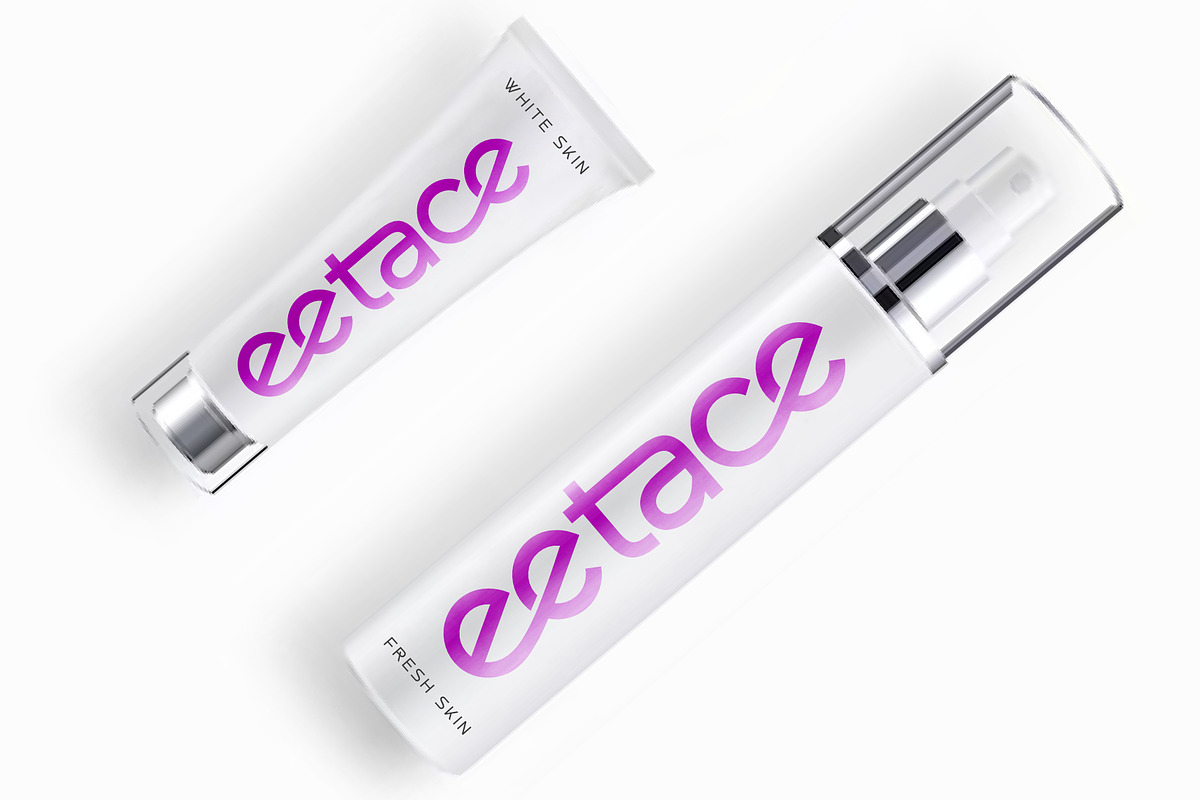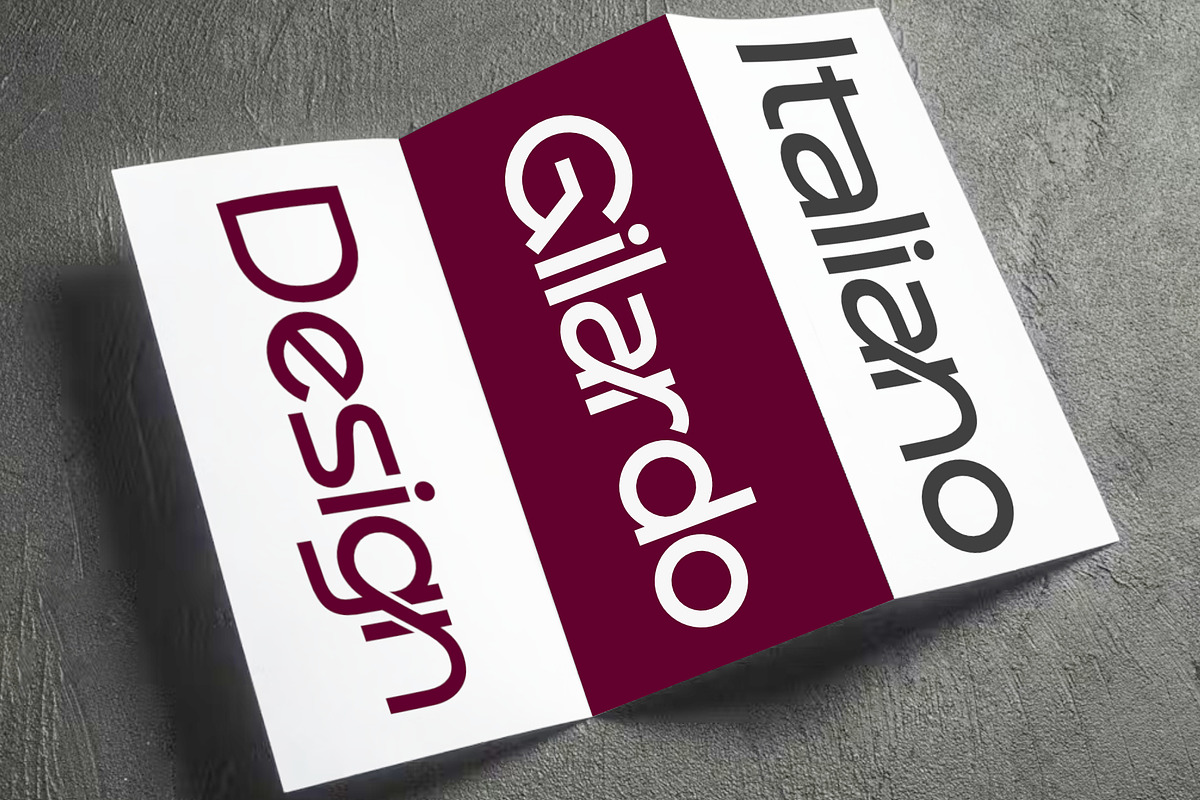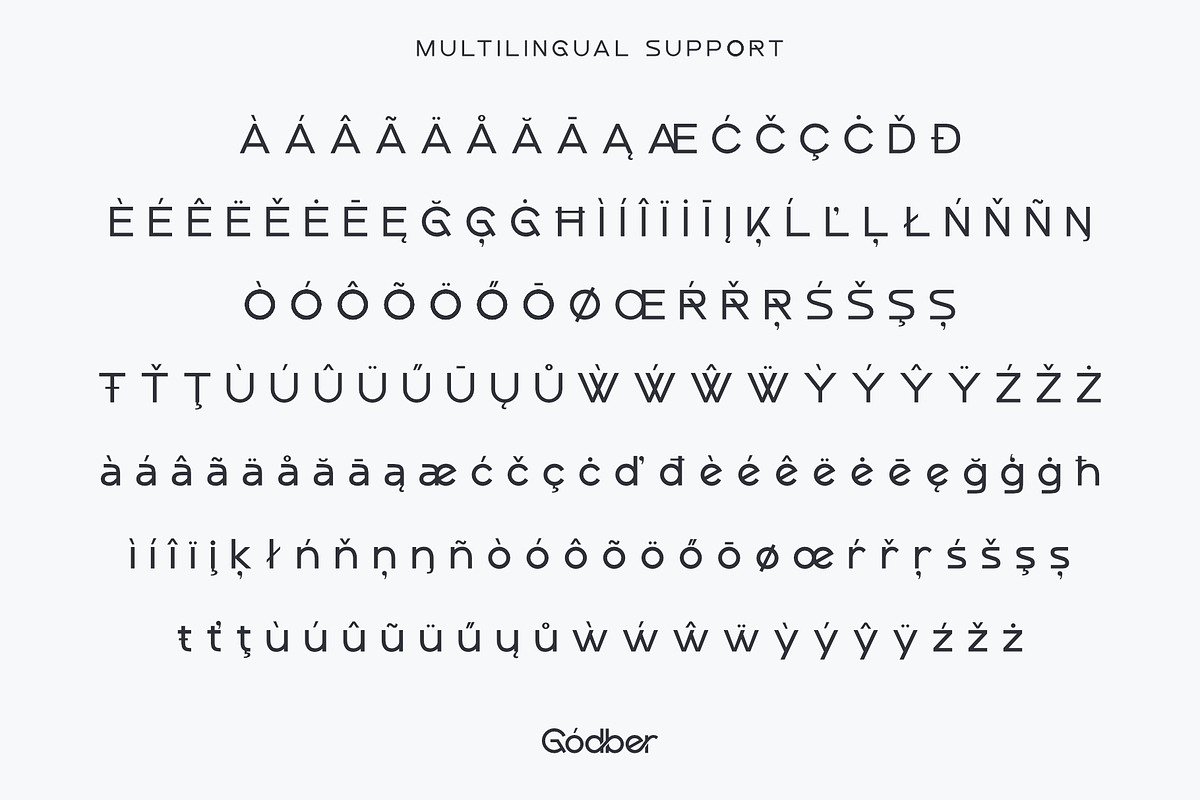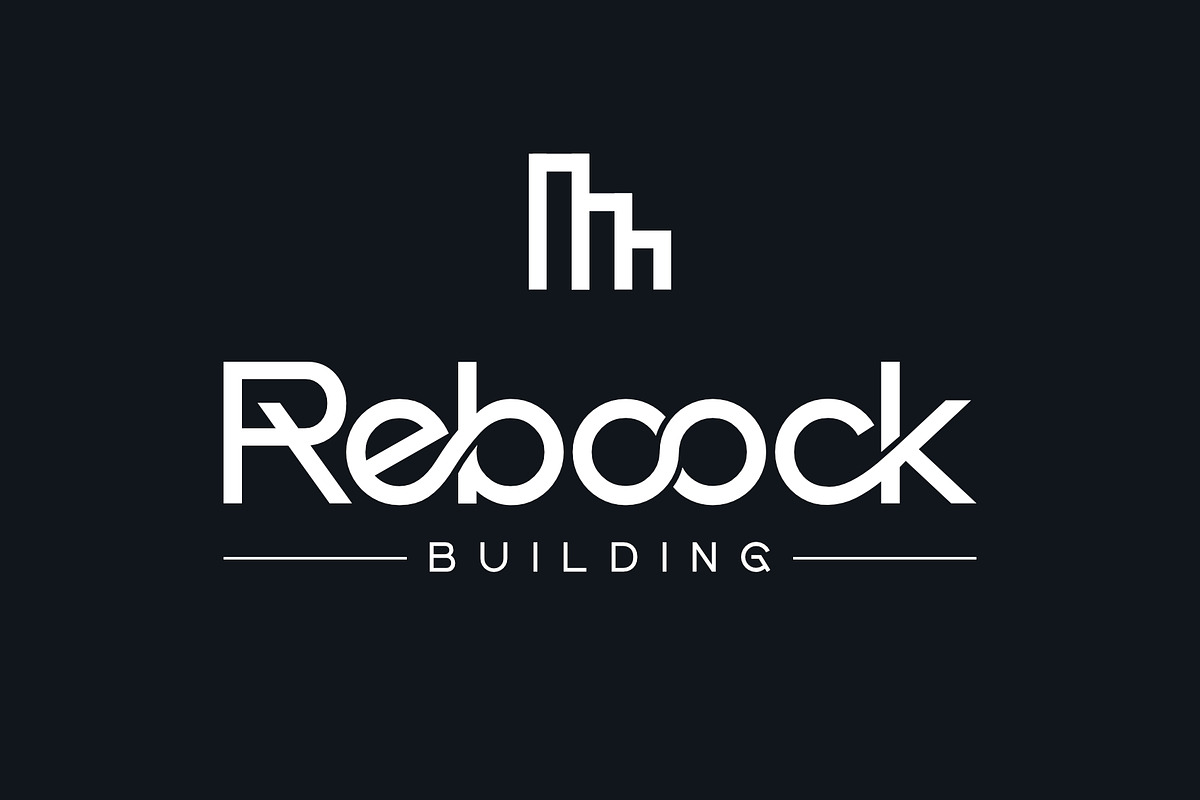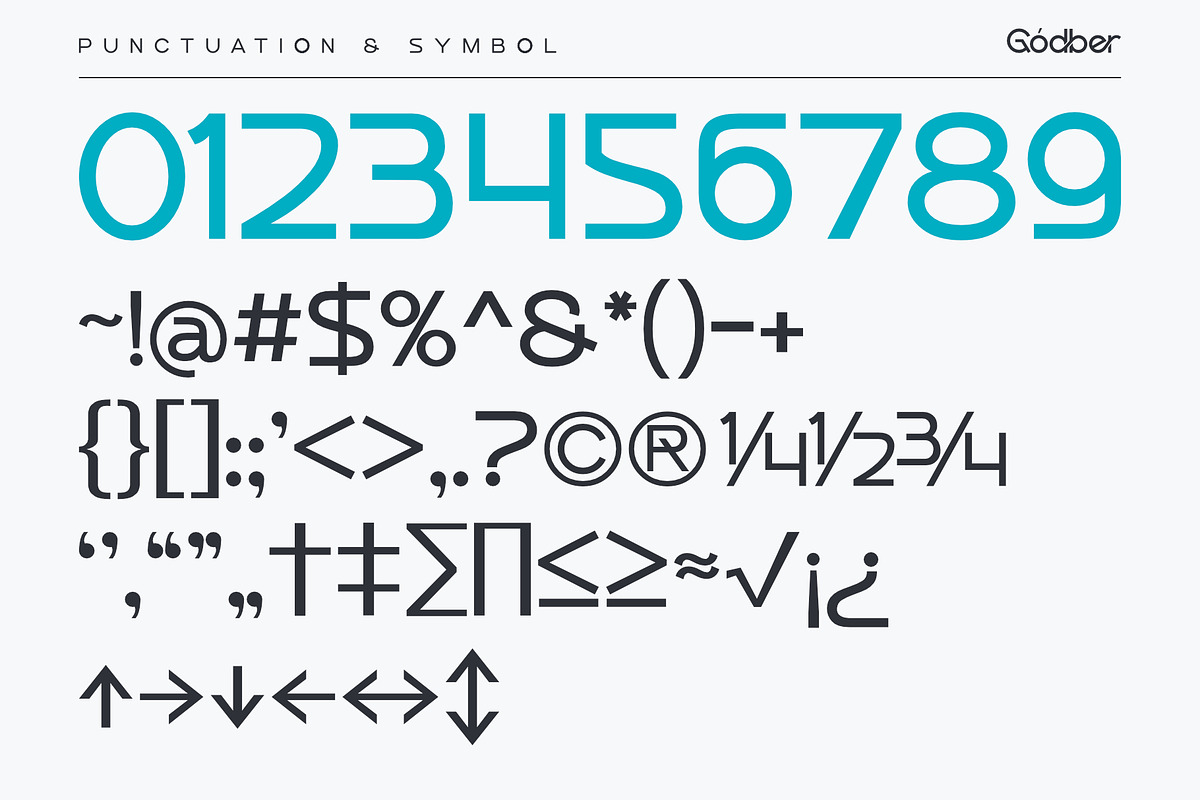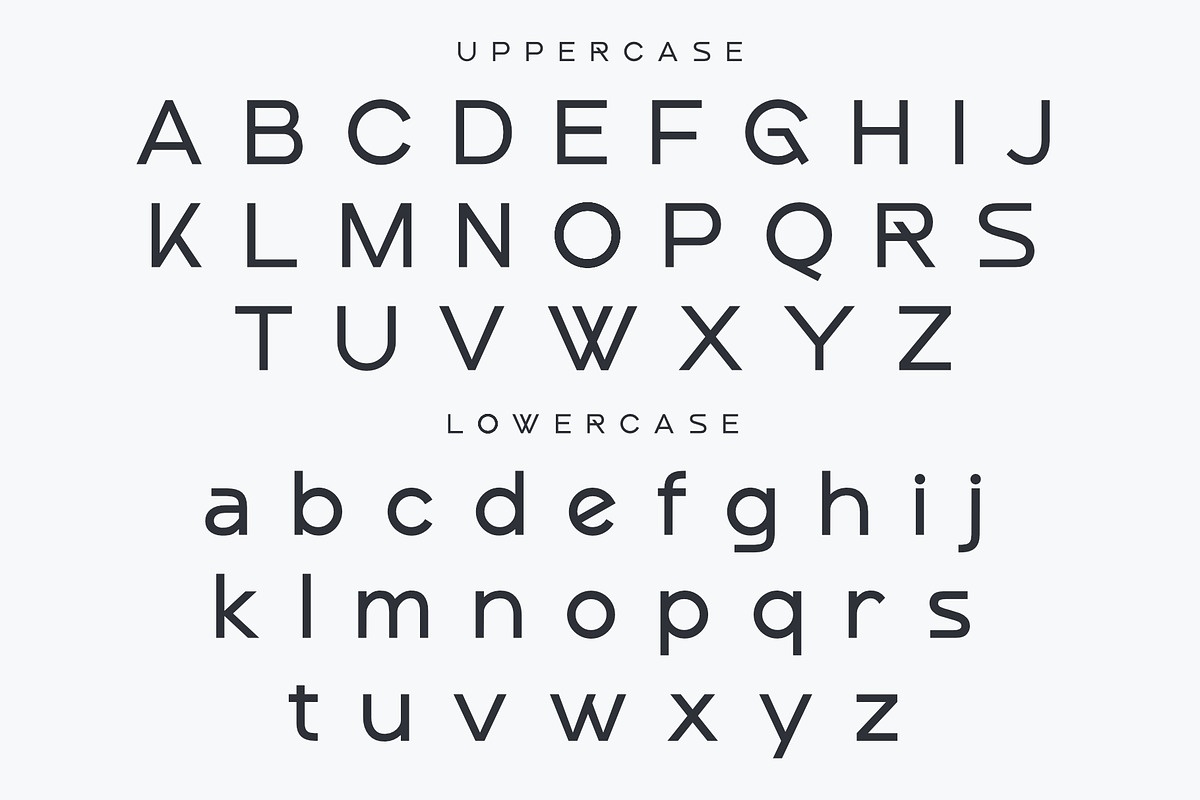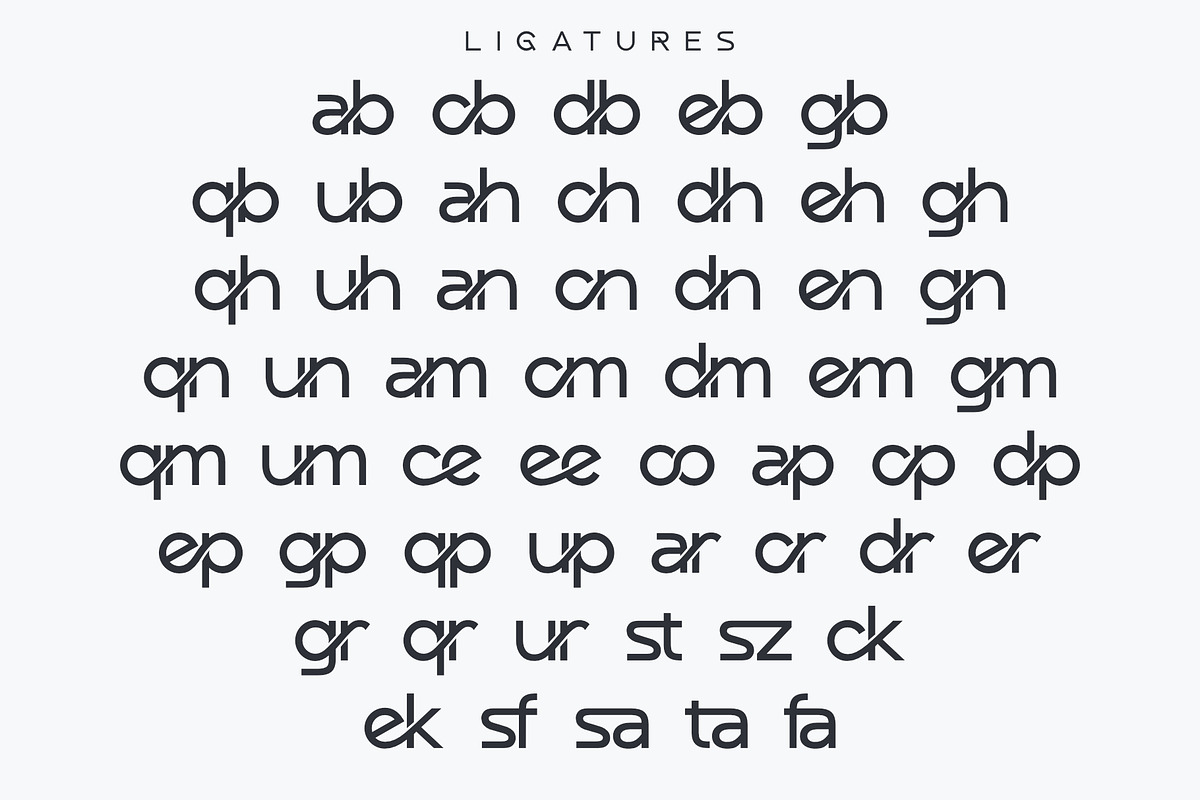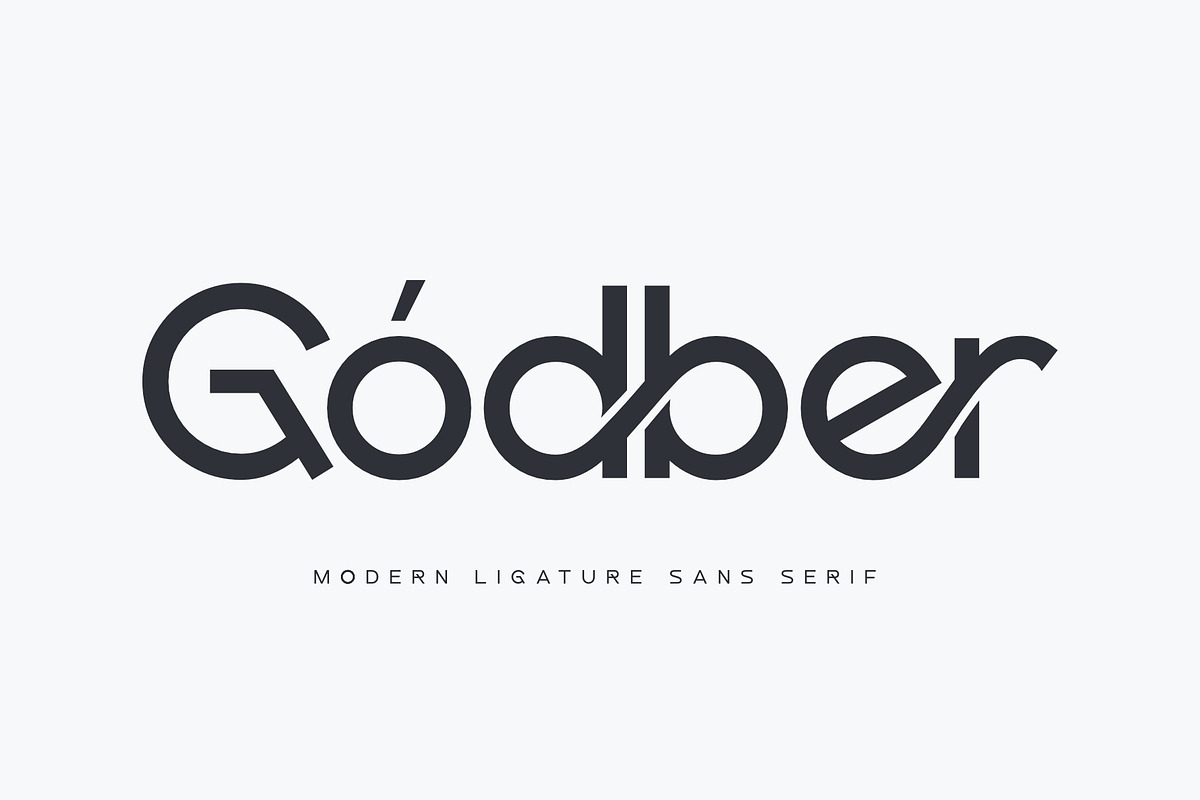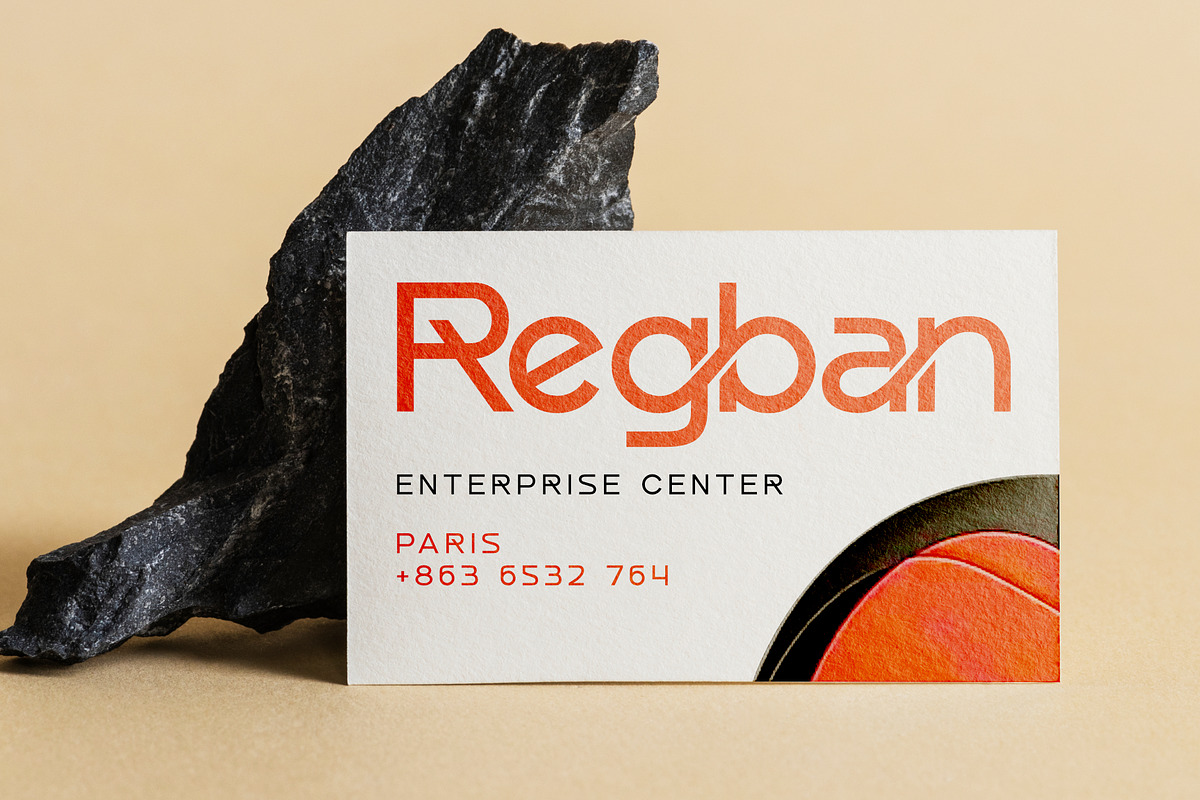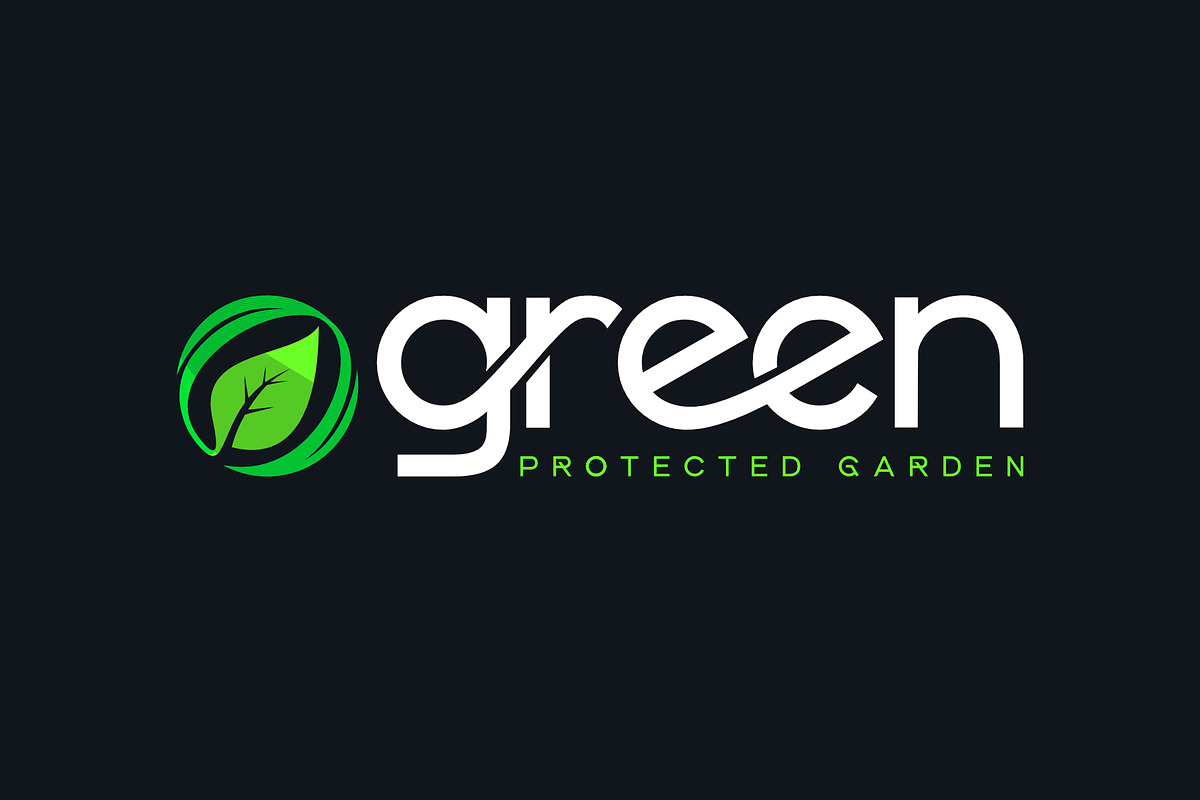
Godber - Modern Ligature Sans Serif
Introducing Godber, a bold and captivating font designed to elevate your brand’s presence. Perfect for crafting modern, attention-grabbing logos, Godber combines clean lines with dynamic aesthetics to ensure your brand stands out.
Godber Font Highlights:
- Bold Impact: Designed for strong, memorable logos and branding that leaves a lasting impression.
- Sophisticated Style: Blending contemporary elegance with a touch of artistic flair, Godber adds a refined and polished look to your designs.
- Versatile Application: Ideal for logos, posters, headlines, and a wide range of graphic design projects.
- Unique Ligatures: Featuring a variety of distinctive ligatures, Godber brings an extra level of creativity and character to your typography, making your text truly one-of-a-kind.
- Sleek Aesthetics: Minimalist yet impactful, Godber ensures your designs capture attention with a modern, stylish edge.
Elevate your brand with Godber, a font that exudes sophistication and style. Whether you’re designing logos, posters, or any graphic project, Godber adds a bold and elegant touch to your work. Make a statement with Godber’s sleek, contemporary design.